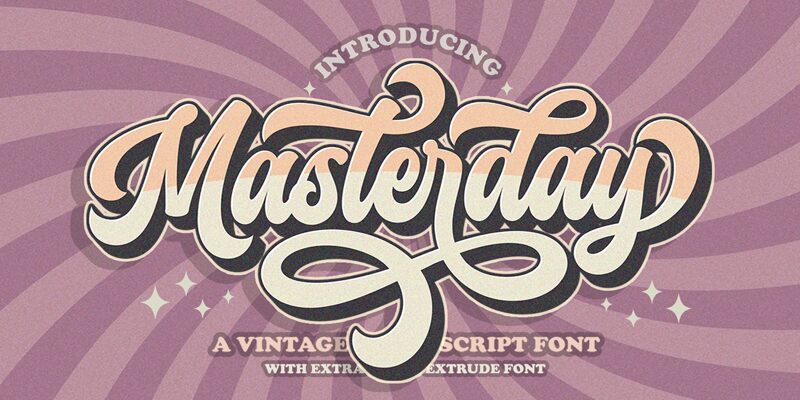
Masterday, a vintage script font by Subectype & Orenari, exudes an air of timeless elegance. With its semi-bold weight and intricate letterforms, this font is perfect for projects that require a touch of nostalgia and sophistication. Use it to add a retro flair to wedding invitations, restaurant menus, or branding materials for boutique hotels. The fluid strokes and delicate curves of Masterday will transport your designs back in time while giving them a contemporary edge. Let your creativity soar with this versatile typeface and bring a touch of vintage charm to your next project.
Masterday